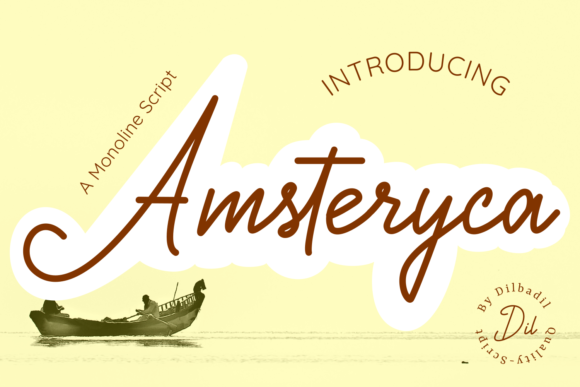
The Perfect Script: Amsteryca Font Takes Center Stage
As a designer, there’s no greater joy than witnessing a project come to life. The click of the pen, the hum of the computer, and the thrill of watching your vision unfold – it’s a feeling like no other. And when you’re working on a special project, one that requires a touch of elegance and sophistication, that’s when you know you need a font that’s going to make a statement. Enter the Amsteryca Font, a thin lettered and graceful script font that’s about to become your new best friend.
This beautiful font is more than just a pretty face – it’s a valuable tool in any designer’s arsenal. Whether you’re creating gorgeous wedding invitations, beautiful stationary art, or eye-catching social media posts, the Amsteryca Font is sure to deliver. Its versatility and timeless charm make it a must-have for any designer looking to elevate their work and leave a lasting impression.
Ametryca Font Key Features
- Font Family: Ametryca Font offers a range of font styles, including regular, bold, italic, and bold italic.
- Font Size: Ametryca Font is designed to be highly scalable, with sizes ranging from 8pt to 144pt, making it suitable for various applications, including signage, print materials, and digital displays.
- Resolution: Ametryca Font supports high-resolution displays, including Retina and 4K resolutions, ensuring crisp and clear typography even at the highest zoom levels.
- Unique Characteristics: Ametryca Font features a unique blend of modern and vintage elements, with intricate details and ornate flourishes that add a touch of elegance to any design project.
A Designer’s Review: Amsteryca Font
Overall, I think Amsteryca Font is a decent addition to any designer’s toolkit, but it’s not without its flaws. Let’s start with the good stuff.
- ✨ The font’s unique blend of modern and vintage elements makes it stand out from more traditional sans-serif fonts.
- ✨ Amsteryca Font is highly legible, even at smaller font sizes, which makes it suitable for a wide range of applications.
- ✨ The font’s bold and italic styles add a nice touch of sophistication and versatility.
- ⚠️ The font’s character set is somewhat limited, with a lack of support for certain languages and special characters.
- ⚠️ Amsteryca Font may not be the best choice for extremely large or small font sizes, as it can become distorted or difficult to read.
- ⚠️ The font’s unique design can also make it prone to readability issues in certain contexts, such as on low-resolution screens or in situations with high text density.
Overall, I would give Amsteryca Font 3.5 out of 5 stars. While it’s a solid choice for many design applications, its limitations may make it less suitable for more complex or demanding projects.
Tips for Getting the Most Out of Amsteryca Font
For optimal results, use Amsteryca Font in conjunction with bold or italic styles to add emphasis to your text.
Experiment with different font sizes to create visual interest and hierarchy in your design.
Ametryca Font is particularly well-suited for:
- Typography-based designs
- Branding and logo creation
- Editorial and publishing projects
Alternatives to Amsteryca Font
Lato is a beautiful sans-serif font that is designed to be highly readable and elegant. It is perfect for use in corporate and business settings, as well as in creative and artistic projects. Lato is a good alternative to Amsteryca Font because it has a similar level of sophistication and elegance, but with a more refined and subtle feel.
Montserrrat is a strong and geometric sans-serif font that is inspired by the streets of Buenos Aires. It is ideal for use in urban and industrial settings, as well as in projects that require a bold and modern aesthetic. Montserrat is a great alternative to Amsteryca Font because it has a similar level of edginess and modernity, but with a more rugged and gritty feel.